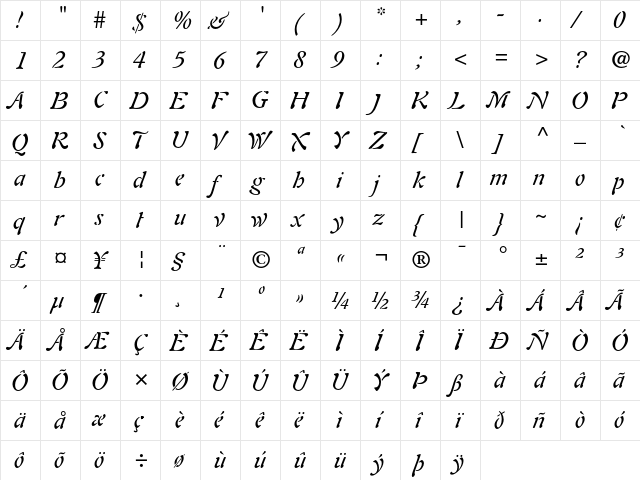
Auriol Italic
Design Context for Auriol Typeface
Auriol takes a measured approach to typography — its balanced proportions and neutral character make it a reliable workhorse for both digital and print work. The dynamic lean of this cut emphasises speed and emphasis in any layout.
Pro Tip: Use Auriol for emphasis, pull quotes, and subheadings where its slanted energy can add rhythm to the layout.